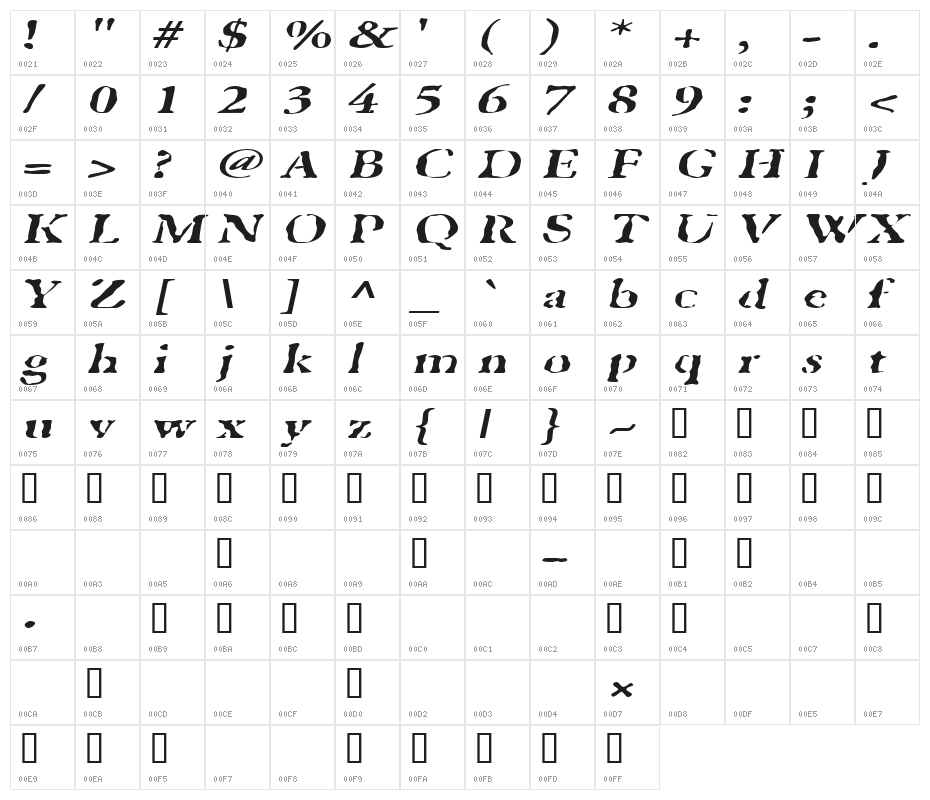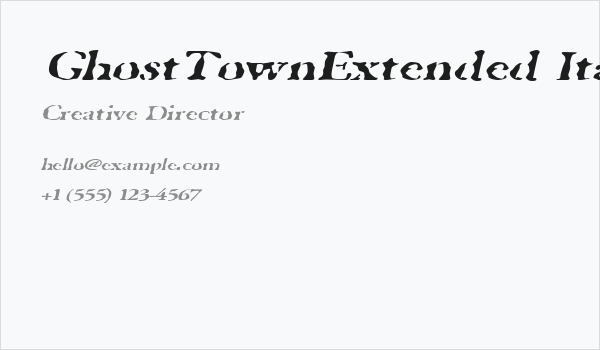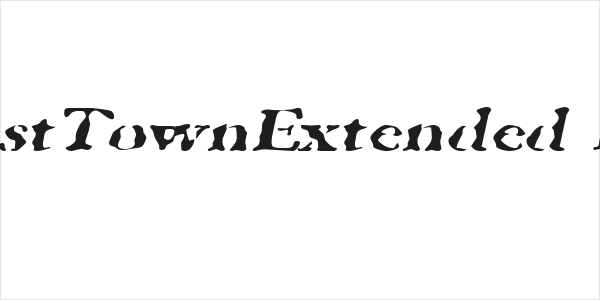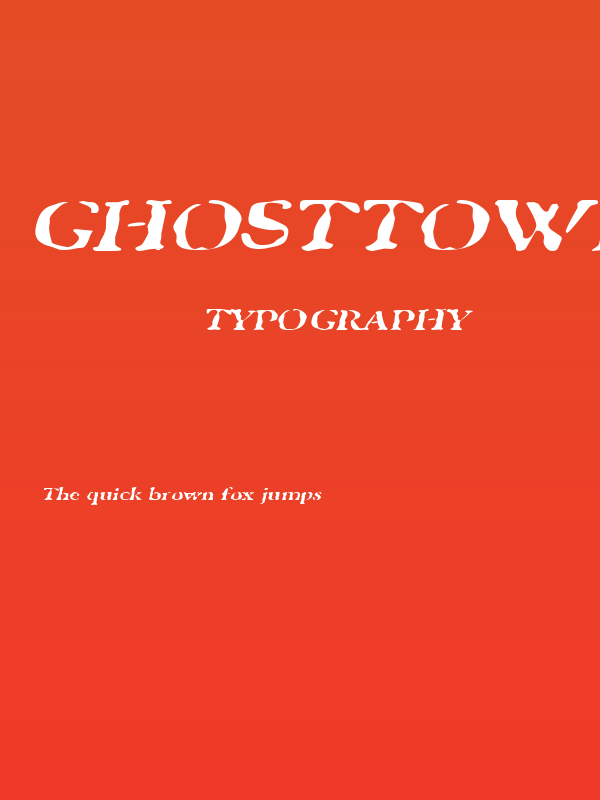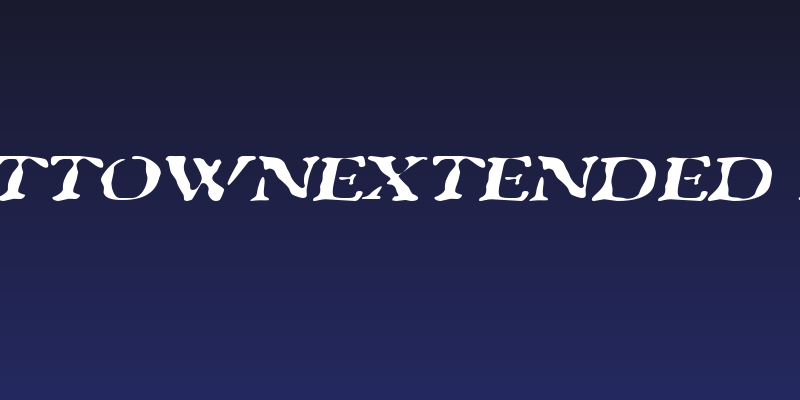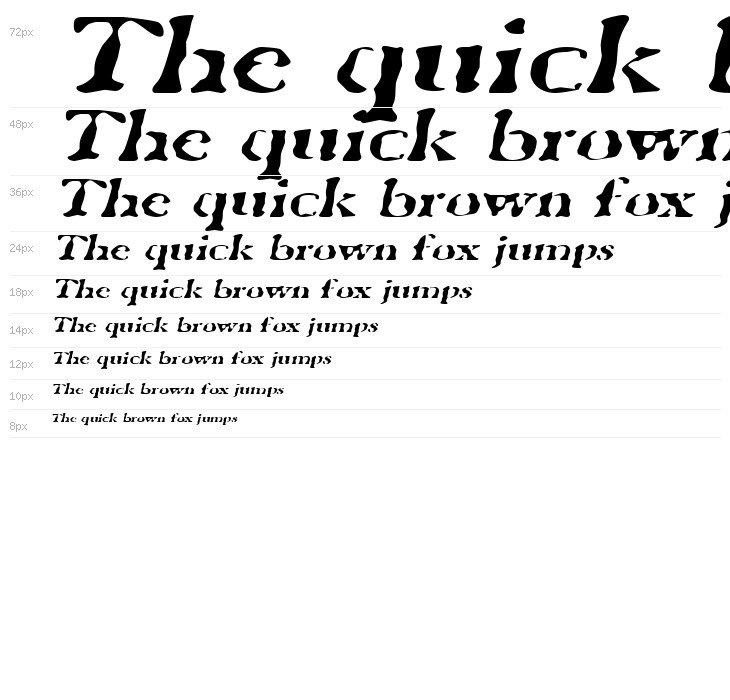
GhostTownExtended Italic Font
GhostTownExtended Italic Description
This font features a distinctive, rugged style with a hand-drawn appearance, reminiscent of old western or vintage signage. The characters have an italic slant, adding a dynamic and energetic feel. The strokes are uneven, with some letters featuring bold, thick lines while others are more delicate, creating a high contrast in stroke thickness. The overall look is decorative and eye-catching, making it suitable for projects that require a bold statement. The character spacing is relatively tight, enhancing the compact and impactful nature of the text.
| Proposed Projects | Ideal for vintage-themed posters, branding for rustic or western-style businesses, and decorative headlines. |